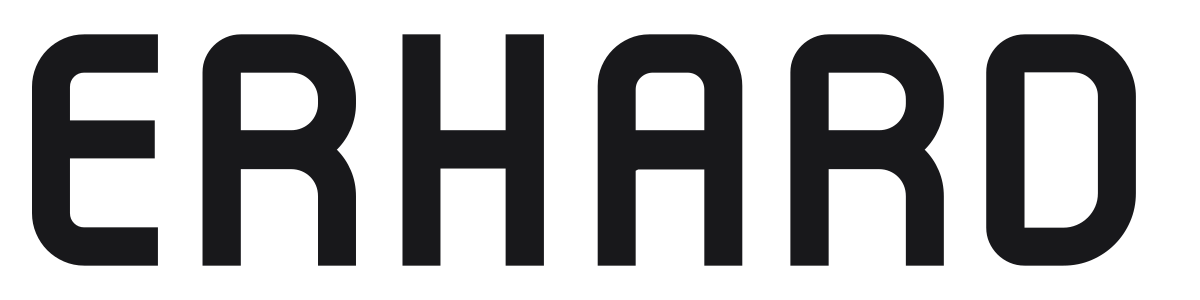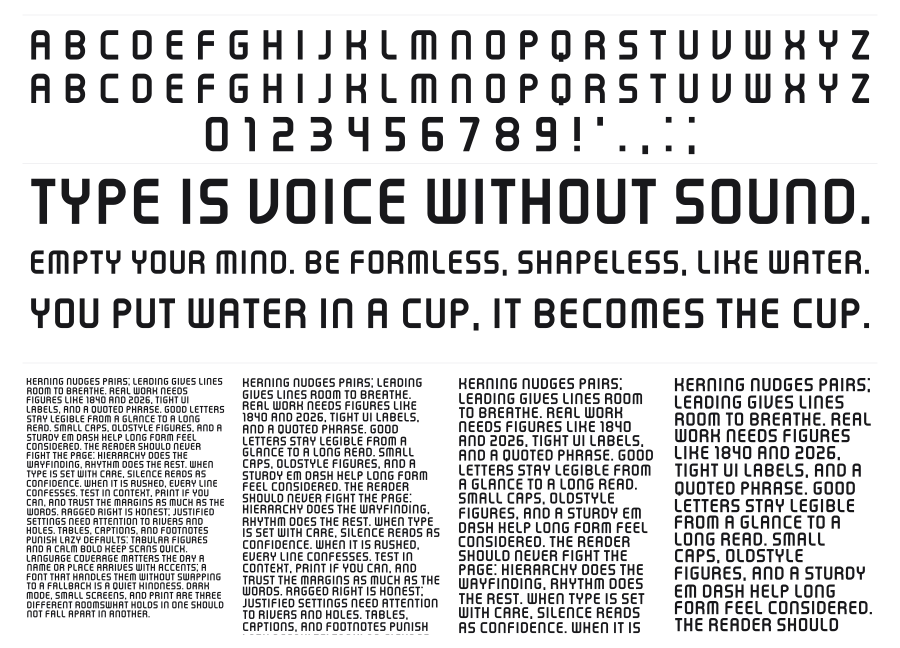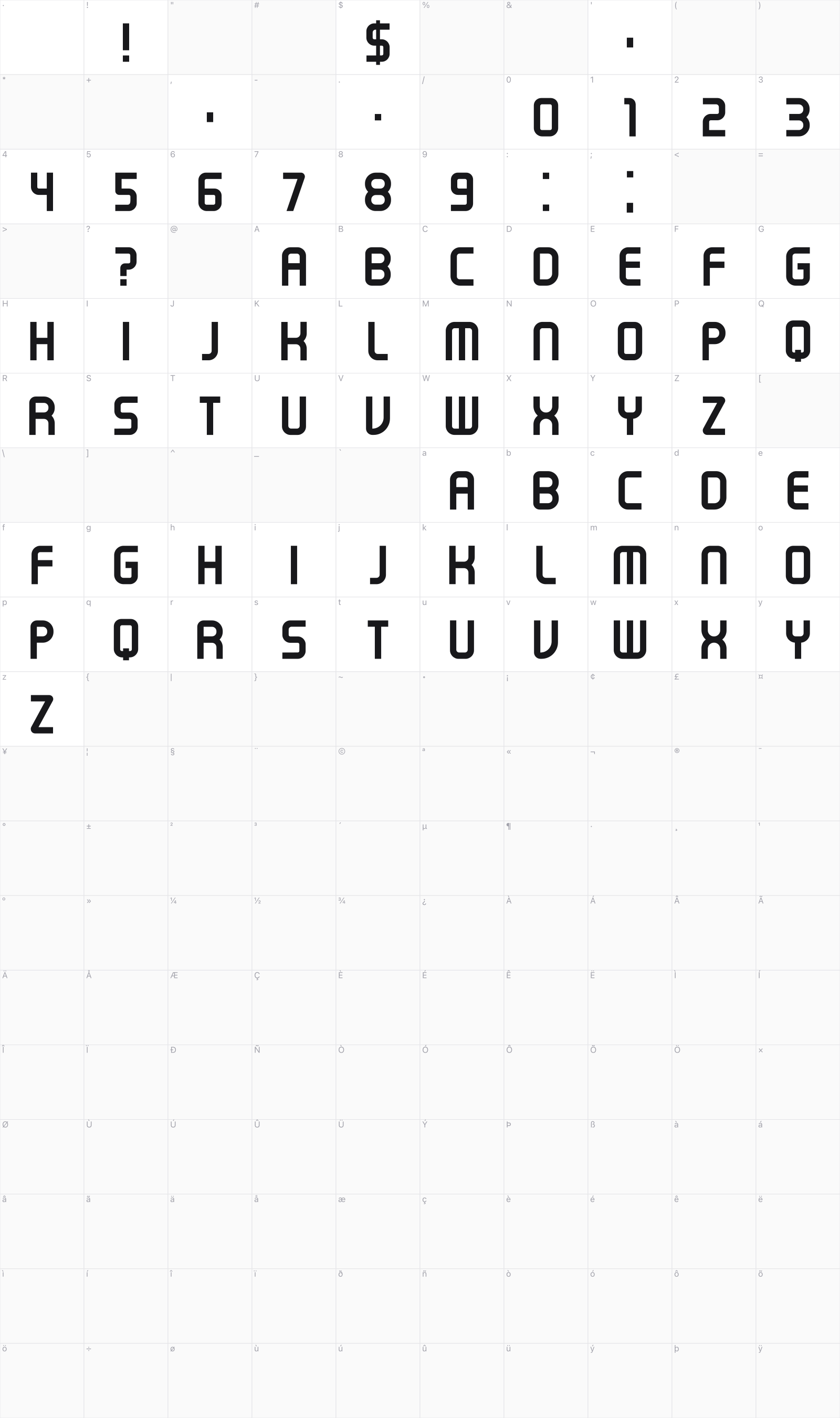
Erhard
Erhard is a bold geometric square sans with subtly rounded corners and a strict modular construction. Every character is built from near-identical rectangular units, creating a cohesive, grid-like rhythm across words. The result sits somewhere between industrial utility and contemporary tech branding.